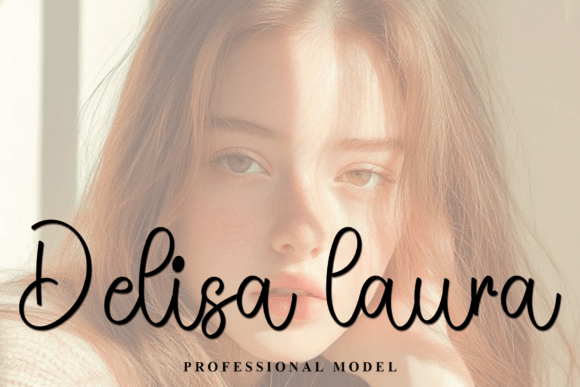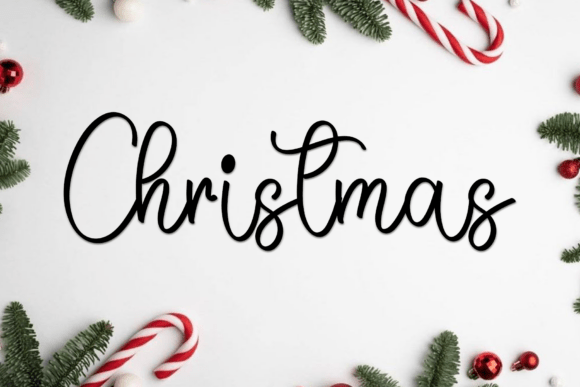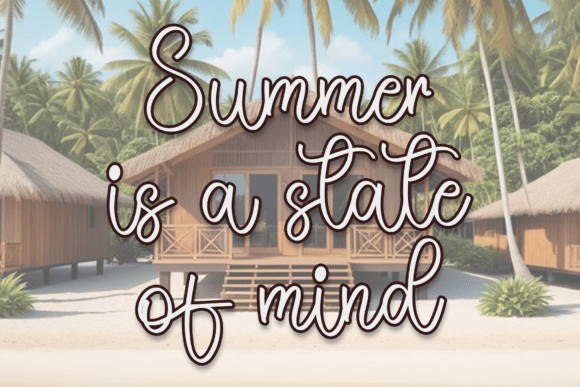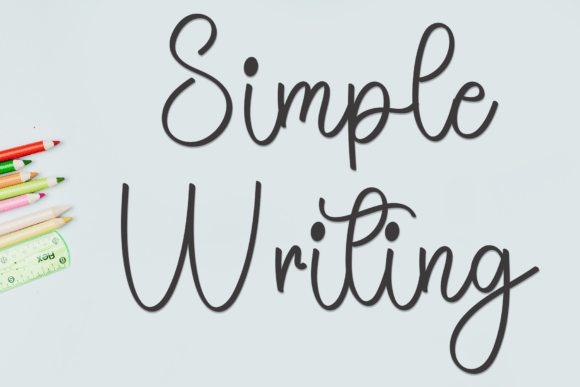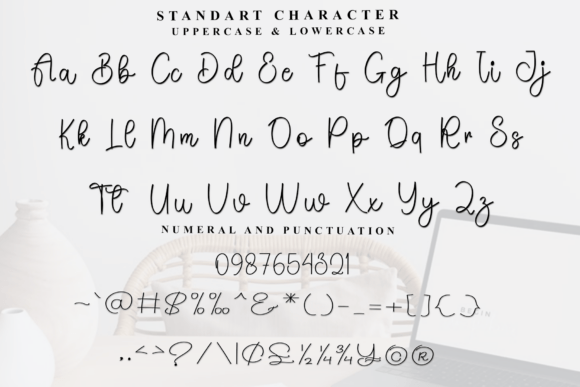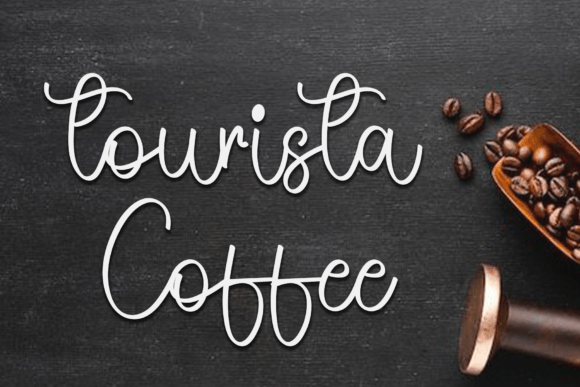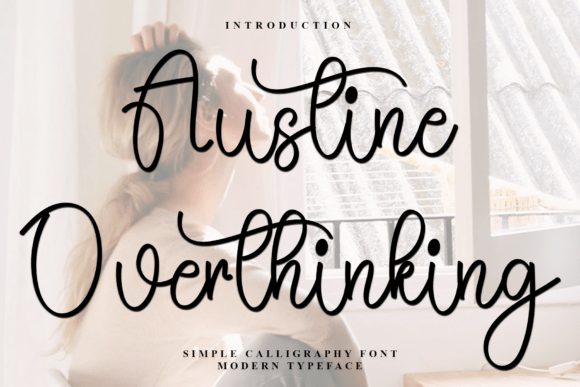
The Magic of Austine Overthinking Font: A Festive Holiday Companion
It’s that time of the year again – the holiday season is just around the corner, and with it comes the pressure to create stunning designs that capture the spirit of the festivities. I recall a particularly stressful experience last year when I was working on a project for a client who wanted a custom holiday greeting card. I spent hours scouring the internet for the perfect font, but nothing seemed quite right. That was until I stumbled upon Austine Overthinking Font, a beautiful and festive typeface that instantly brought my design to life.
As a designer, I’m always on the lookout for fonts that can add a touch of magic to my projects. Here’s what I think about Austine Overthinking Font:
• ✨ Festive and merry vibe: This font perfectly captures the spirit of the holiday season, making it ideal for greeting cards, gift tags, and other festive designs.
• ✅ Decorative elements and whimsical flair: The font’s decorative elements and whimsical touches add a touch of enchantment to any design.
While Austine Overthinking Font is a stunning addition to any design, there are a few quirks to be aware of:
• ⚠️ Some characters may require manual kerning: As with any font, some characters may require manual kerning to ensure optimal spacing and readability.
• 🤔 Limited use outside of holiday-themed projects: While the font is incredibly versatile, it may not be the best choice for non-holiday projects, as its festive vibe might not fit the tone of your design.
The Story Behind Austine Overthinking Font
Austine Overthinking Font was created by a talented designer who wanted to capture the magic of the holiday season in a typeface. Inspired by vintage holiday cards and festive decorations, the designer poured their heart and soul into creating a font that would bring joy and wonder to designers and crafters alike.
Q: Is Austine Overthinking Font suitable for non-holiday projects?
A: While Austine Overthinking Font is incredibly versatile, its festive vibe might not fit the tone of non-holiday projects. Use your discretion and consider the font’s personality before using it for non-holiday designs.